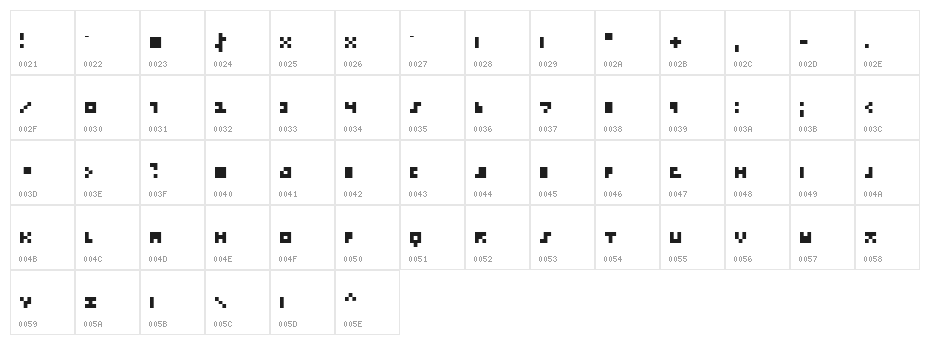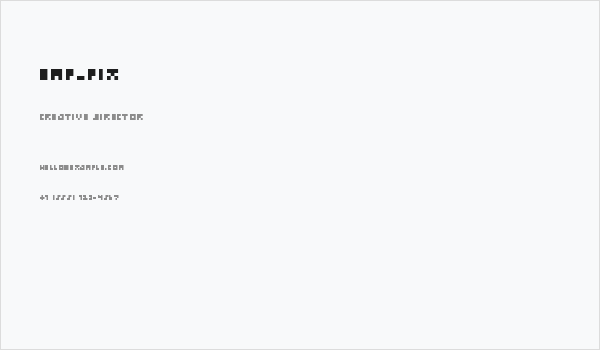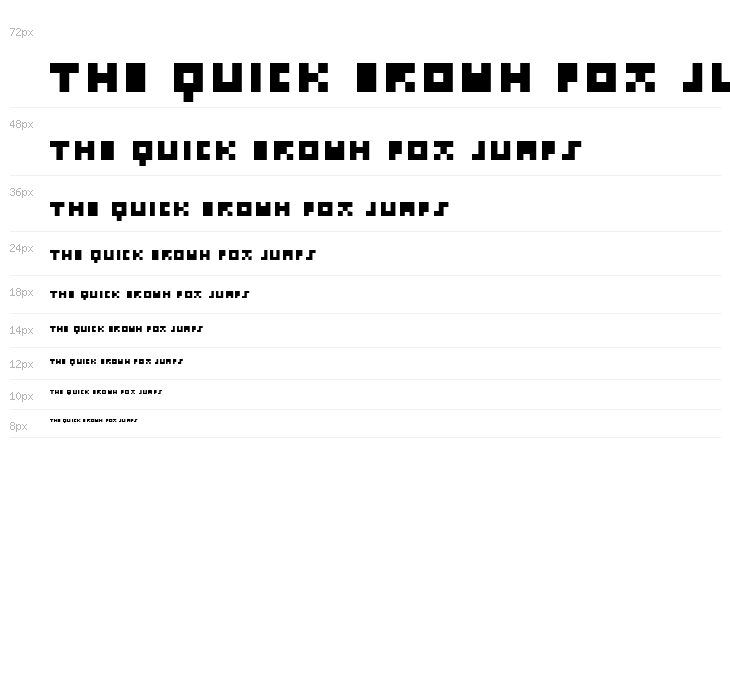
emp_pix Font
emp_pix Description
This font features a bold, geometric design with a pixelated appearance reminiscent of early digital displays or video games. Each character is constructed from a grid of squares, giving it a distinctly blocky and retro aesthetic. The uniformity in stroke width across all characters contributes to its cohesive and structured look. Despite its rigid form, the font maintains legibility, making it suitable for both uppercase and lowercase letters, as well as numbers and a selection of special characters. The style is evocative of 8-bit graphics, making it ideal for projects that aim to capture a nostalgic or tech-inspired feel.
| Overall Style | Retro, Digital |
| Proposed Projects | Ideal for video game design, retro-themed posters, digital art, and tech-related branding. |